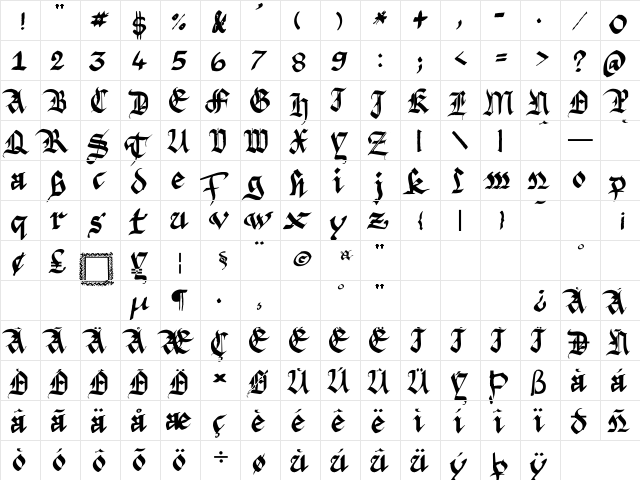
Argor Fast Scaqh Regular
Design Context for Argor Fast Scaqh Typeface
Argor Fast Scaqh is a composed and adaptable typeface that performs quietly and consistently across a wide range of design contexts.